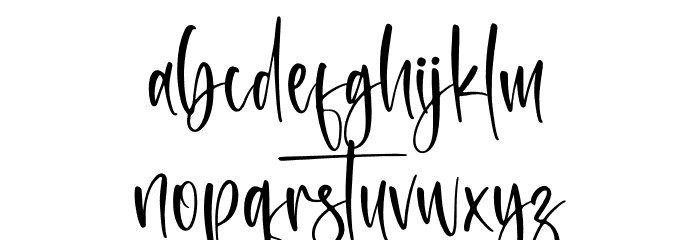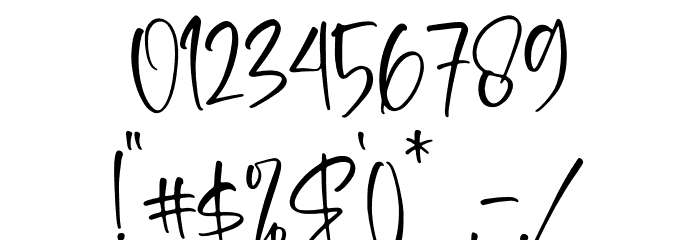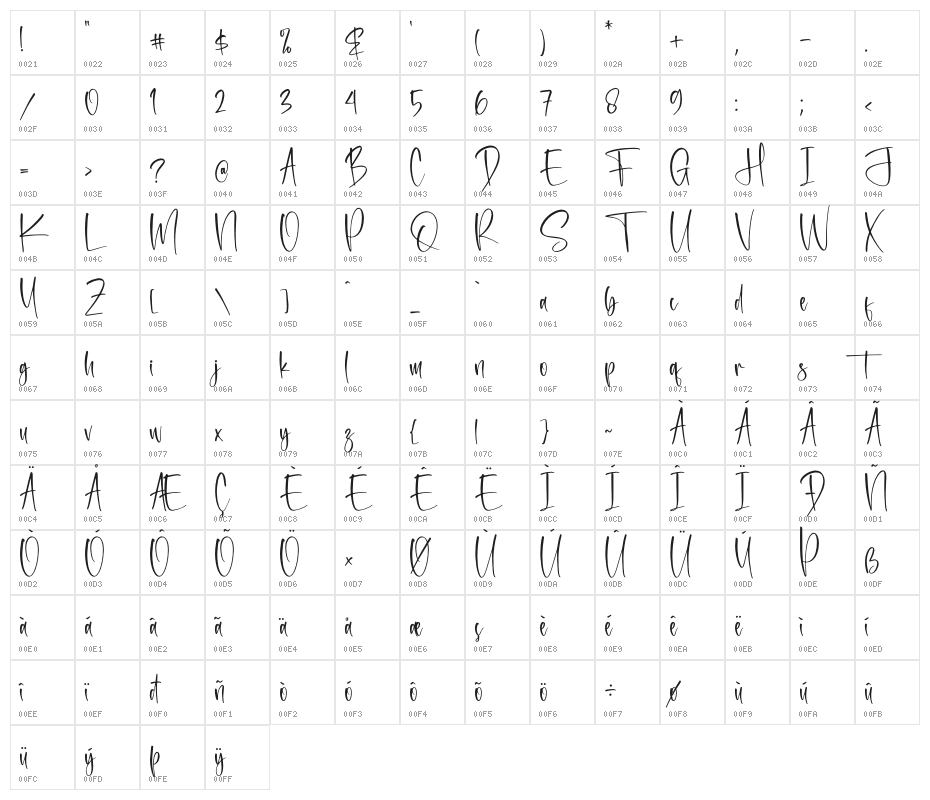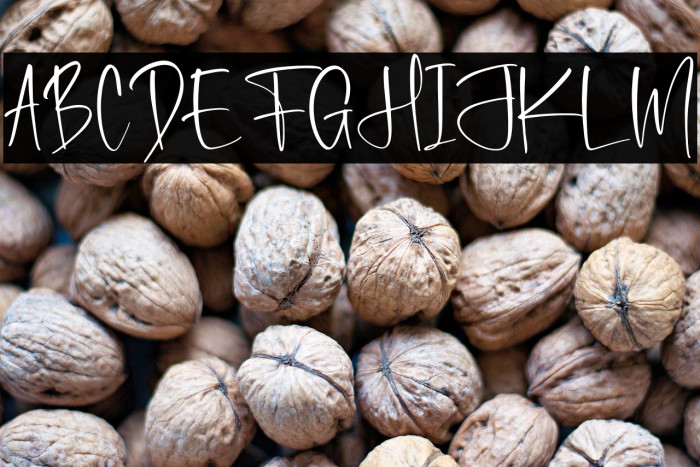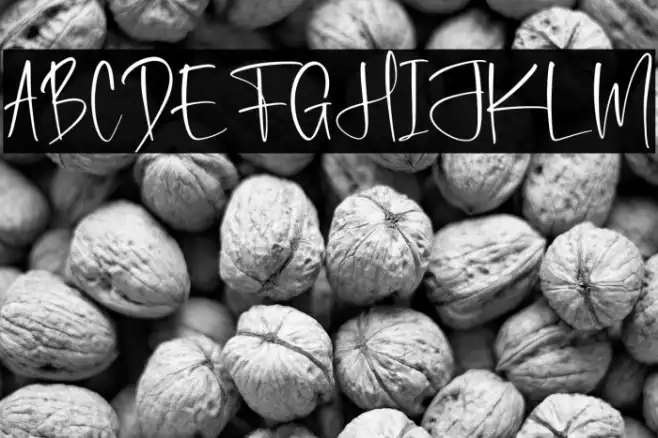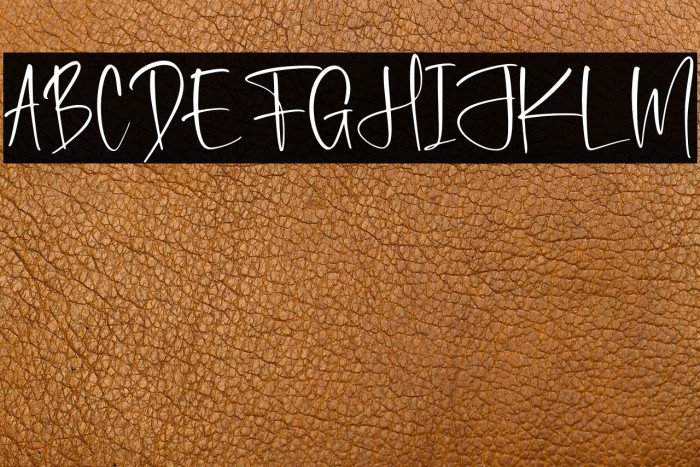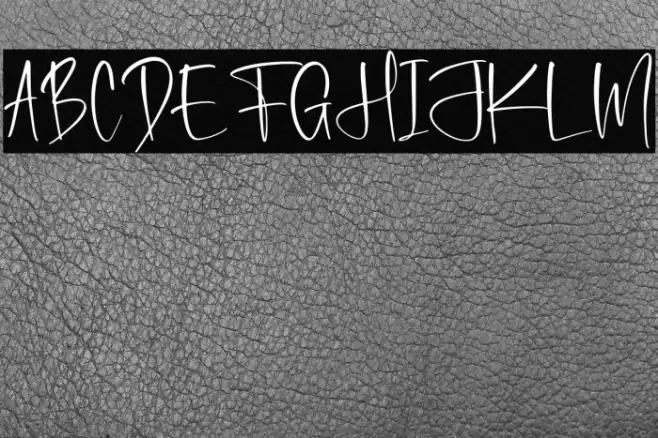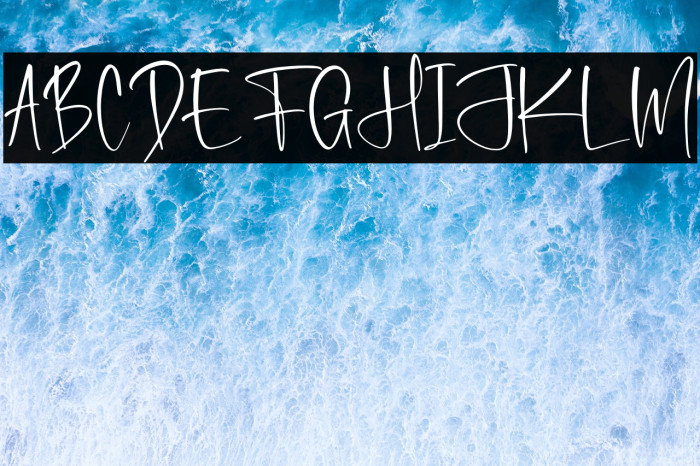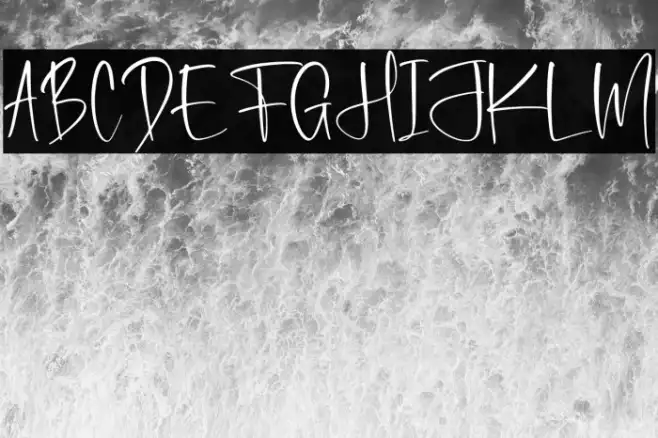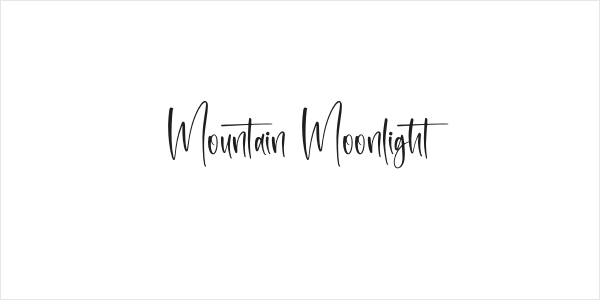
Mountain Moonlight Font
This font features a dynamic and expressive handwritten style, characterized by its fluid and organic strokes. The uppercase letters exhibit a playful and artistic flair, with varying heights and angles that add a sense of movement. The lowercase letters maintain a cohesive flow, complementing the uppercase with their slightly more restrained yet equally lively design. Numbers and special characters are crafted with the same energetic touch, ensuring consistency across all elements. The overall appearance is both modern and whimsical, making it suitable for creative and informal applications.
A lively and expressive handwritten font with a modern, artistic flair.
- Font: Mountain Moonlight
- Proposed Projects: Ideal for greeting cards, invitations, branding projects, and social media graphics where a personal and creative touch is desired.
- Category: Handwritten
- Use Case: Logos, Headlines, Creative projects